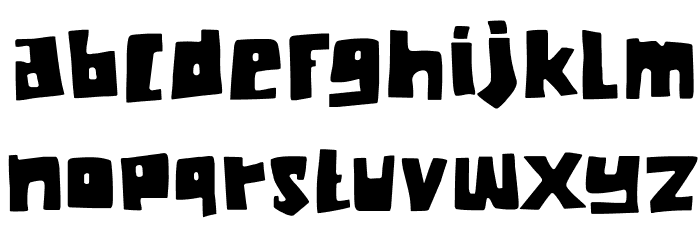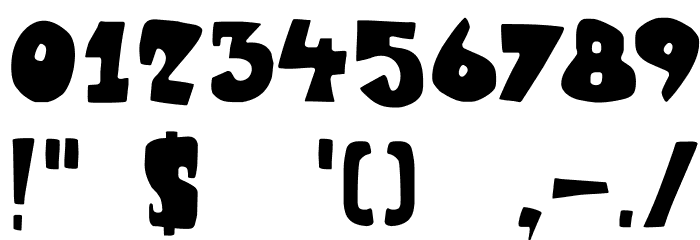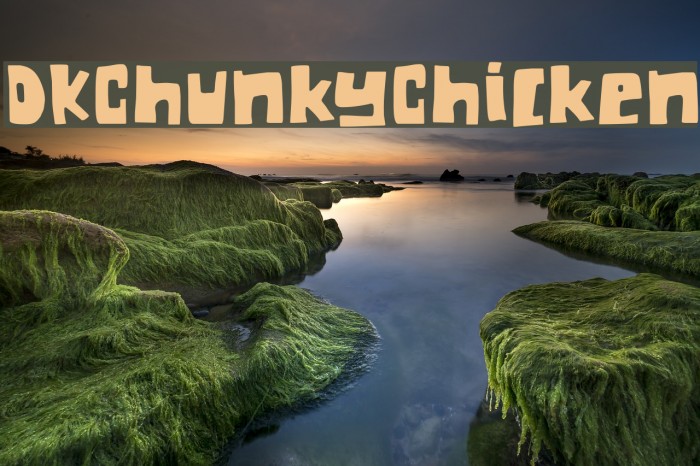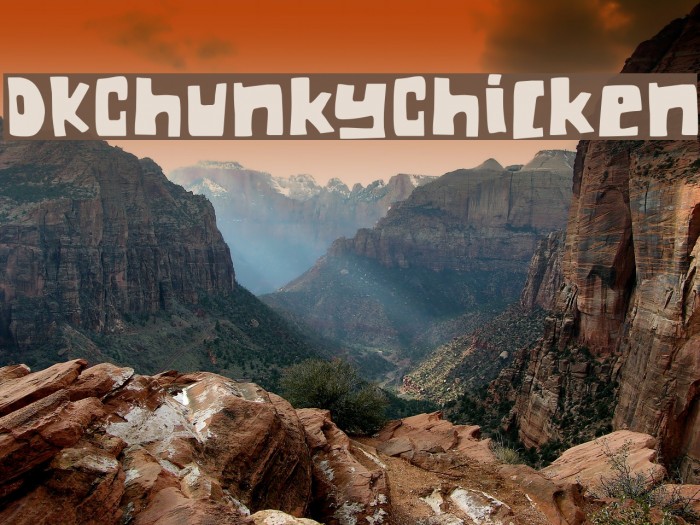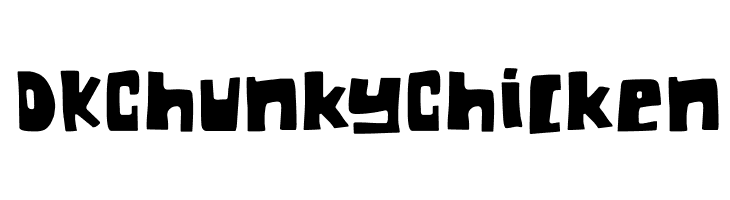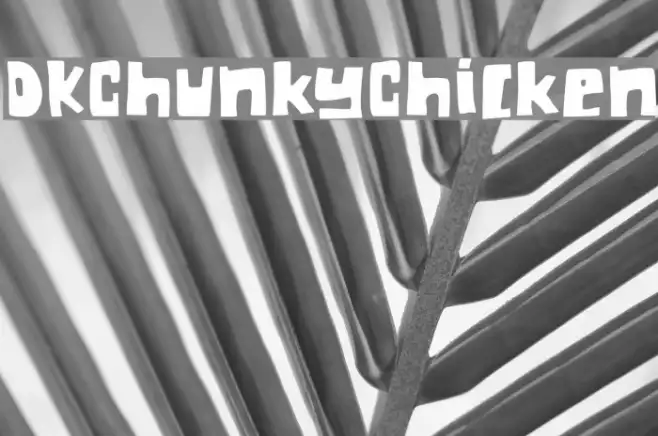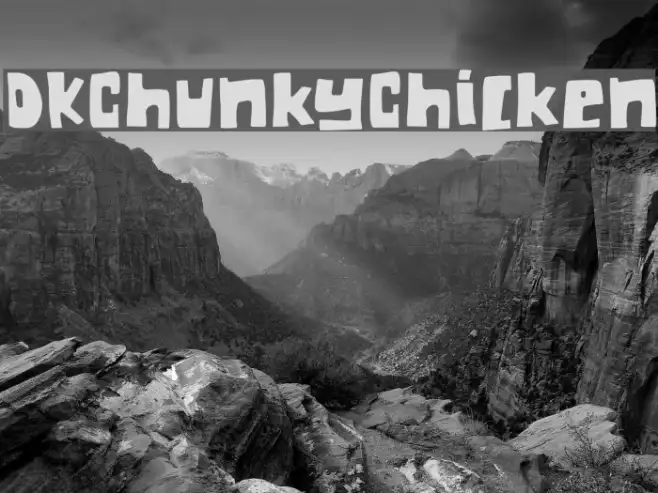
DKChunkyChicken Font
This font features a bold and playful design with chunky, irregular shapes that give it a whimsical and informal appearance. The characters are heavily weighted, with uneven edges and varying widths, creating a dynamic and eye-catching look. The uppercase and lowercase letters maintain a consistent style, with a slightly exaggerated and cartoonish feel. Numbers and special characters follow the same playful theme, making the font suitable for creative and fun projects. The overall style is reminiscent of hand-drawn or crafted lettering, adding a personal touch to any design.
A bold, playful font with chunky, irregular shapes and a whimsical style.
- Proposed Projects: Ideal for children's books, playful branding, posters, and creative invitations.
- Overall Style: Playful, Whimsical, Hand-drawn